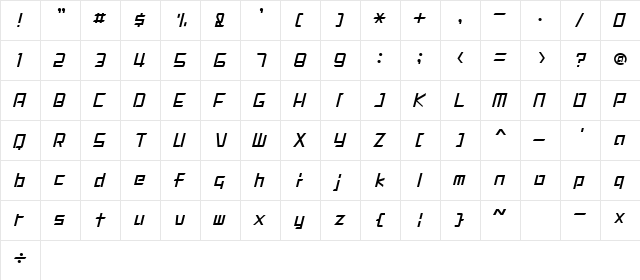
DigiMode1988 Regular
Design Context for DigiMode1988 Typeface
DigiMode1988 is a composed and adaptable typeface that performs quietly and consistently across a wide range of design contexts.